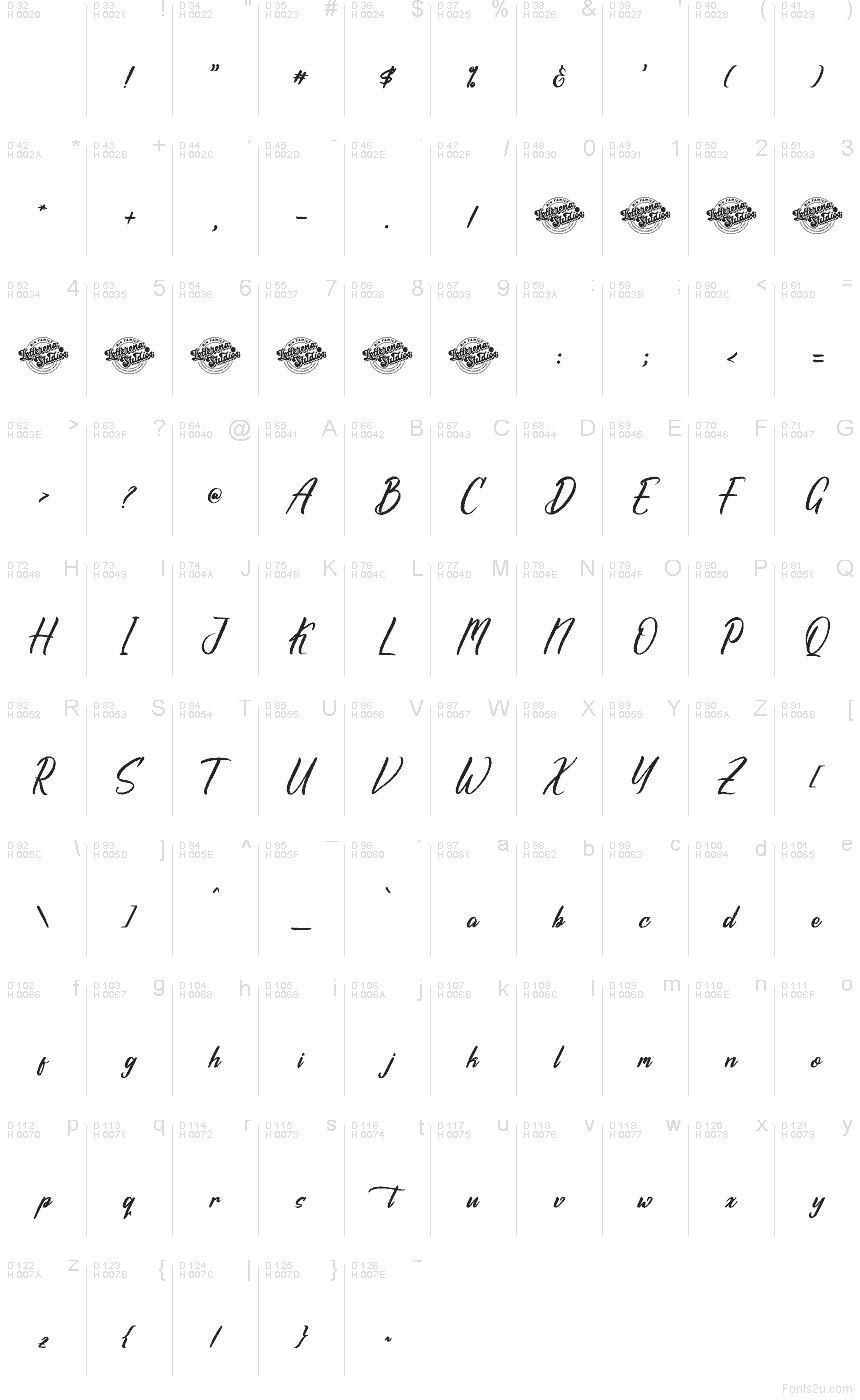
Burgundy Deception DEMO VERSION
Burgundy Deception font by Letterena Studios is a free calligraphy font that pours across the page like wet ink from a well-loved pen. Its looping strokes, sweeping entries, and slightly textured edges give every word a hand-lettered, intimate feel—romantic without being sugary, stylish without feeling stiff. The letters connect with an easy rhythm, so even short phrases look like polished signatures or custom lettering work.
Using Burgundy Deception, you can add drama and charm to wedding invitations, save-the-date cards, boutique logos, packaging for beauty products, event signage, and social media quote graphics. This free font shines when used large, letting the long swashes and curls breathe. Pair it with a simple geometric sans serif for supporting text to keep layouts clean while letting the script carry all the emotion.